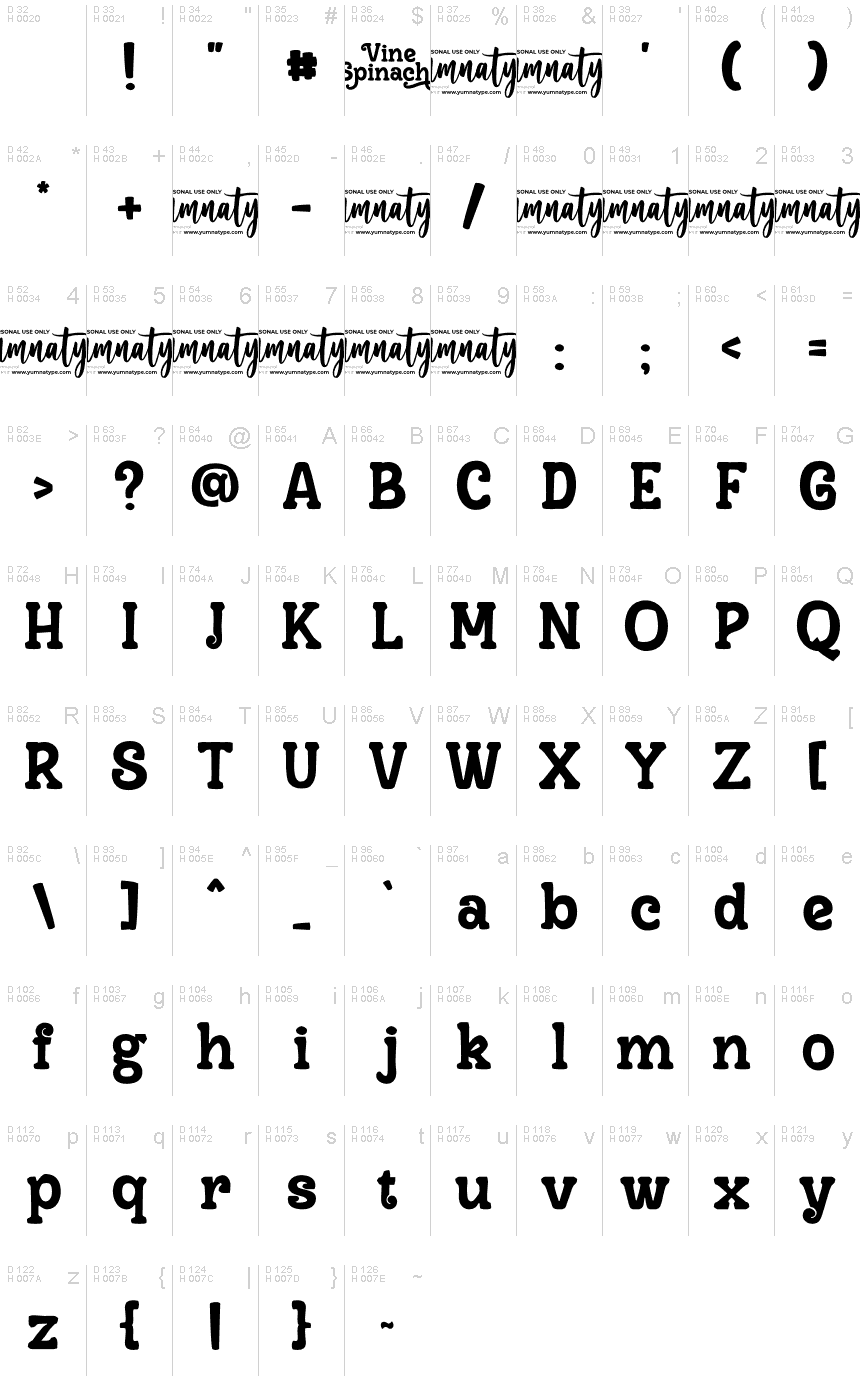
Vine Spinach Personal Use
Vine Spinach, a delightful creation by Yumna Family, is a charming and playful font that adds a touch of whimsy to any project. Its semi-bold weight gives it a sense of confidence and presence, while its cute display style brings out the inner child in any design.
Perfect for children's books, greeting cards, and playful branding projects, Vine Spinach infuses your work with joy and personality. Let this font take you on a delightful journey where creativity knows no bounds.